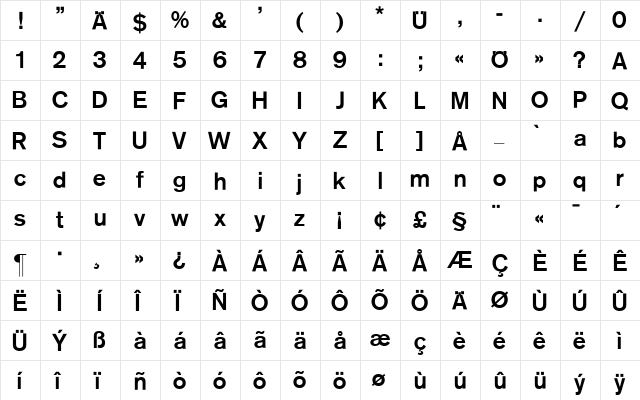
Sh Ad Grotesk Medium Regular
Design Context for Sh Ad Grotesk Medium Typeface
Sh Ad Grotesk Medium takes a clean, functional approach — its unadorned letterforms prioritise legibility and work reliably across screen and print environments.
Font Pairing: Works well alongside a characterful serif or display font that can carry the expressive load while Sh Ad Grotesk Medium handles the functional copy.
Pro Tip: Use Sh Ad Grotesk Medium for UI labels, navigation, and short-form body copy where clean legibility is the priority.